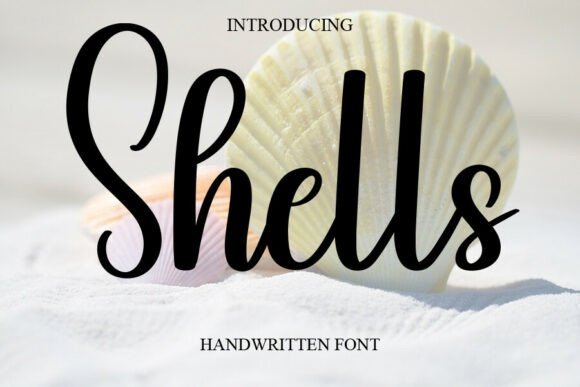
Introduction to Shells Font
Shells is a tall, sweet handwritten font with a friendly and casual feel.
Great for bakery branding, food blogs, birthday invites, or anything that needs a charming, handcrafted touch, this font adds personality without overwhelming your design .
Shells Font offers exceptional quality and versatility, making it a valuable addition to your design toolkit. Whether you’re creating for personal projects or commercial use, Shells Font delivers professional results.